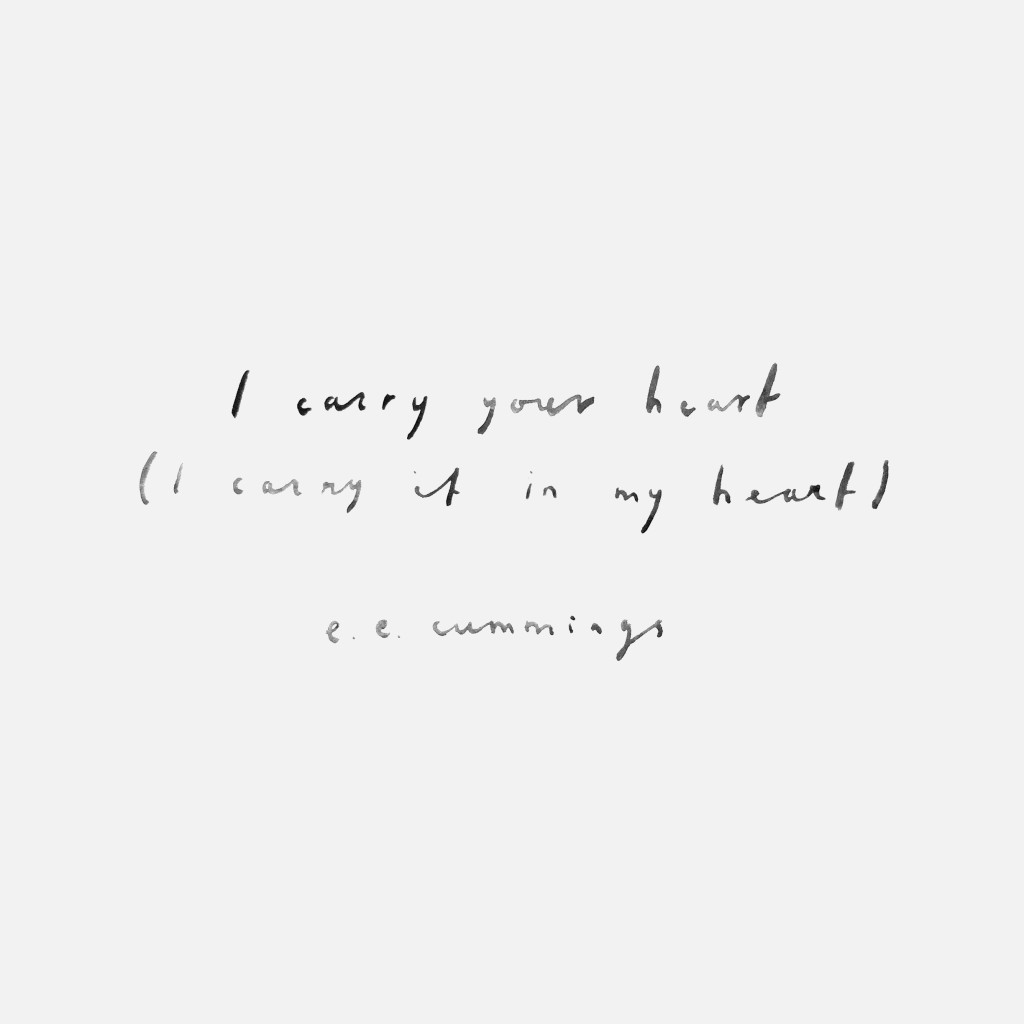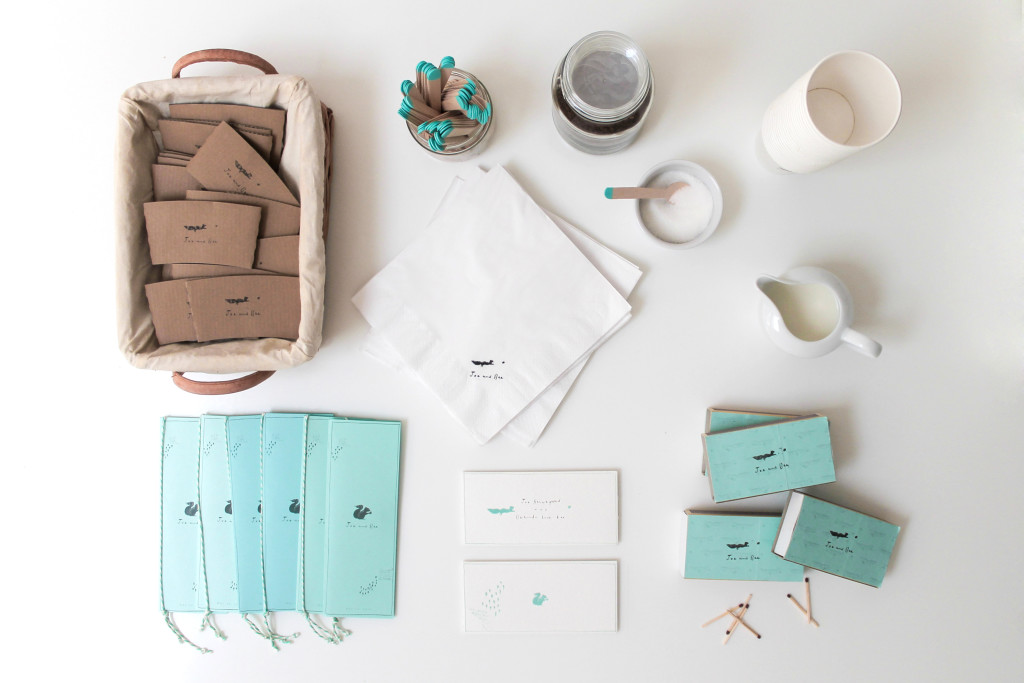
Lettering Legend – Belinda Love Lee Interview
I recently announced a new feature called ‘Lettering Legends’. If you are not sure what a ‘Lettering Legend’ is then here is a brief summary. A ‘Lettering Legend’ is somebody from the lettering community that has inspired others, they may or may not be well known but they are certainly worth knowing about. If you’d like more detail, then please read the introduction article that I previously wrote. The first ‘Lettering Legend’ that I introduced you to was brush artist Emma Holmes, and it was actually Emma who introduced me to Lettering Tutorials next ‘Lettering Legend’.
I’m really pleased to reveal that this months ‘Lettering Legend’ is Belinda Love Lee. Belinda takes after her name, and really is lovely. She was very enthusiastic about being a ‘Lettering Legend’, and has created some amazing lettering work in her time. Belinda has inspired a lot of people all over the world, including myself and the above mentioned Emma. The style of lettering Belinda uses is very unique and personal. She has her own store selling her beautiful hand made lettered goods. Belinda was even brave enough to design her own wedding invitations and stationary, which you can read more about in the interview below.
For those new to lettering, how would you define your style of hand lettering?
“Hmm, good question. It’s easier for me to envision how I’d like others to see my style so, I’m going to flip the question around. I’d like others to describe my hand lettering as casual, effortless with a touch of whimsical to it. I try to make sure it’s not overly girly, elegant and structured, but more loose around the edges. Though, at the same time as I’d like for my style to be effortless, I still make sure it’s fairly neat and organized in layout.”
You’ve worked on a lot of lettering projects, including branding, logo design, stationary, collaborations and more. What lettering project stands out the most and why?
“The first project that really put my work on the map was the branding I did for Christina Yan, so that project will always stay close to my heart. Then I would proudly say, that my favourite project would be my own wedding invites. I had full creative liberty, and it was good to have the challenge of working within our tiny budget, considering all those factors I think it turned out amazing! But mind you at the time it was a much hard task then I anticipated.”
Both buzzfeed and creativebloq have featured wedding lettering created by you. Creativebloq goes into detail about how you designed all of your own wedding branding using your own lettering. There is often a little stress involved with any creative project, making sure you keep a client happy etc. How was it creating your own lettering for such a personal and significant event?
“Firstly designing your own wedding invites, and designing them well (it ain’t no DIY cut and paste here) is a real privilege that probably not many people get to experience. The process of designing our own invites definitely added stress on top of the other countless wedding tasks, but I wouldn’t have had it any other way. I wouldn’t have been fully satisfied if I had someone else design or letter my invites.
I was able to bring out the major OCD in me, and made sure that everything was down to a tee, from the lettering, to illustrations, to the paper choice. The main goal was to keep each element representative of our effortless and casual lifestyle – we had a hands on hog roast at our wedding, so the invites had to fit the bill!”
You mention on your website that your favourite colour is the same shade as the sea, green combined with blue. Do you find it difficult to avoid these colours influencing your lettering work when necessary, and what advice would you give to those trying to break lettering habits?
“The struggle is real!